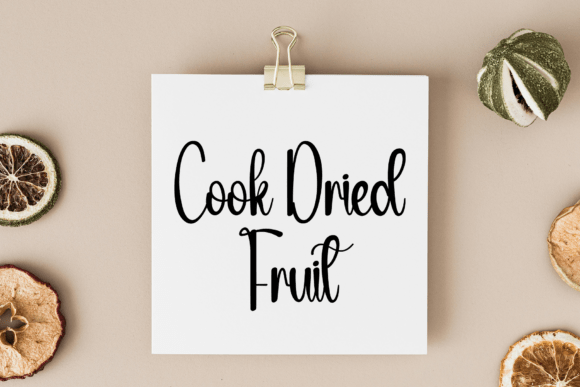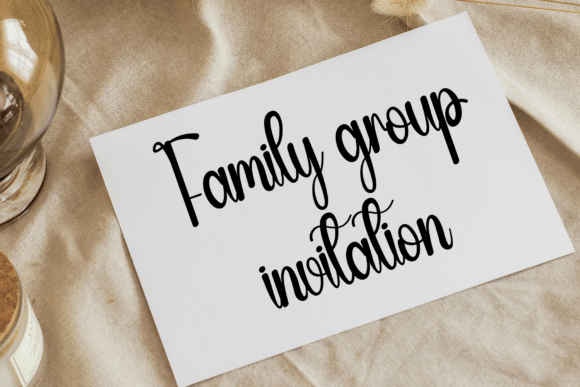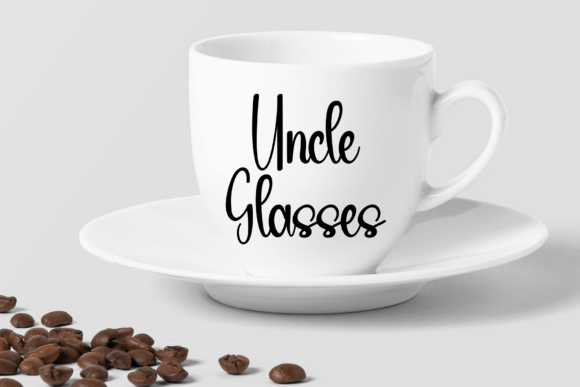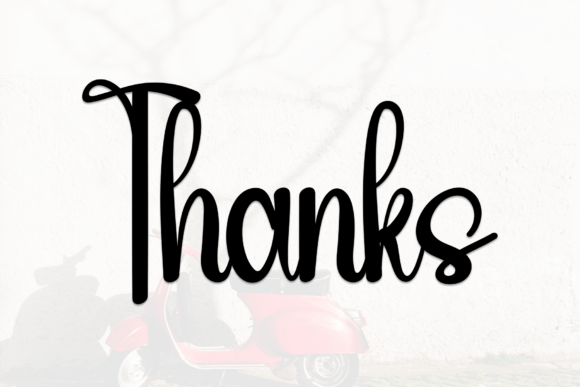
Introducing December Christmas Font: A Charming Handwritten Delight
Are you looking for a font that captures the essence of the holiday season? Look no further than the December Christmas Font, a charming handwritten font that exudes warmth and coziness. With its smooth strokes and organic lines, this font is perfect for designers and crafters seeking to add a touch of festive flair to their projects.
The Perfect Blend of Elegance and Whimsy
December Christmas Font is a beautifully crafted font that strikes the perfect balance between elegance and whimsy. Its handwritten style gives it a personal and intimate feel, making it ideal for use in a variety of design projects, from branding and invitations to social media graphics and holiday cards.
Key Features of December Christmas Font
- Smooth Strokes: The font features smooth, flowing strokes that give it a relaxed and effortless feel.
- Organic Lines: The organic lines and subtle imperfections in the font add to its handmade charm.
- Heartfelt Perfection: The font’s design is centered around creating a sense of heartfelt perfection, making it perfect for holiday-themed projects.
- Versatile: The font’s versatility makes it suitable for a wide range of design projects, from formal to informal.
Use Cases for December Christmas Font
With its unique blend of elegance and whimsy, December Christmas Font is perfect for a variety of design projects, including:
- Branding: Use the font to create a festive and memorable brand identity for your business.
- Invitations: Create beautiful and inviting holiday invitations that set the tone for your party or event.
- Social Media Graphics: Add a touch of holiday cheer to your social media graphics, from Facebook posts to Instagram stories.
- Holiday Cards: Create personalized and heartfelt holiday cards that will make your loved ones feel special.
Tips for Using December Christmas Font
To get the most out of December Christmas Font, here are a few tips to keep in mind:
- Pair with Other Fonts: Experiment with pairing the font with other complementary fonts to create a unique and visually appealing combination.
- Use in Large and Small Sizes: The font is suitable for use in both large and small sizes, making it perfect for headlines and body text.
- Experiment with Colors: Try out different color schemes and combinations to find the perfect match for your design project.